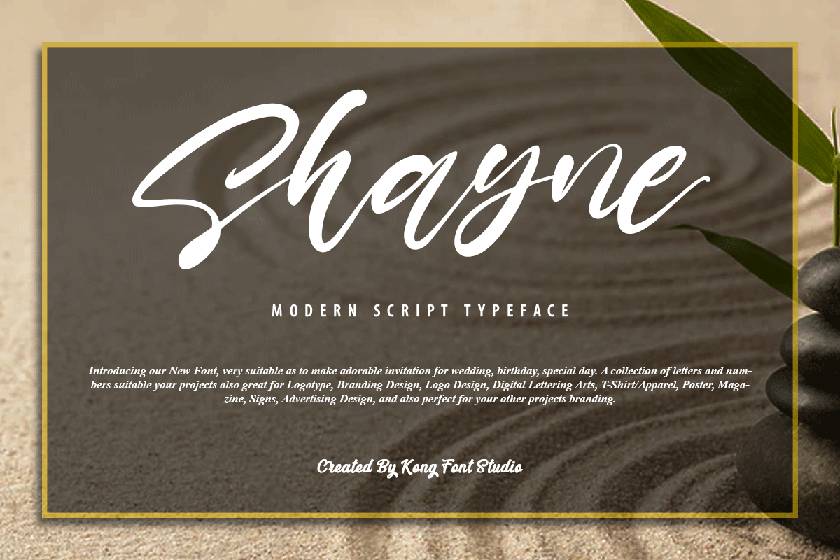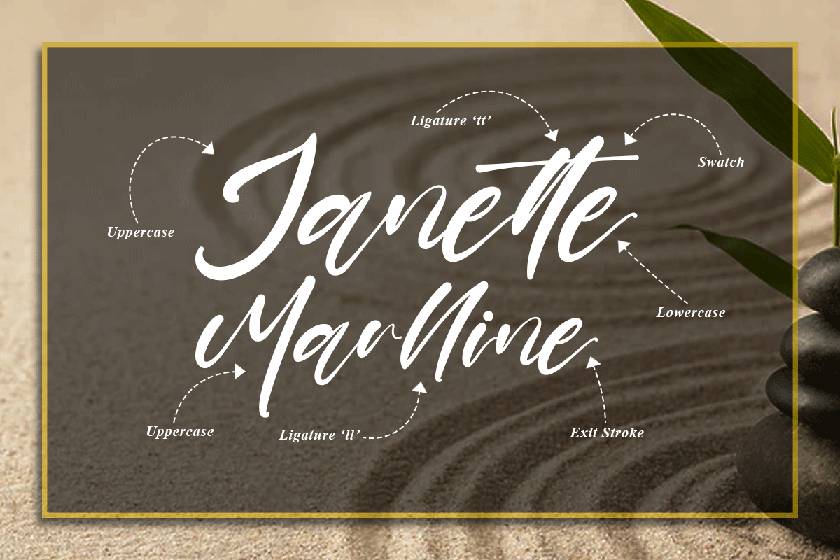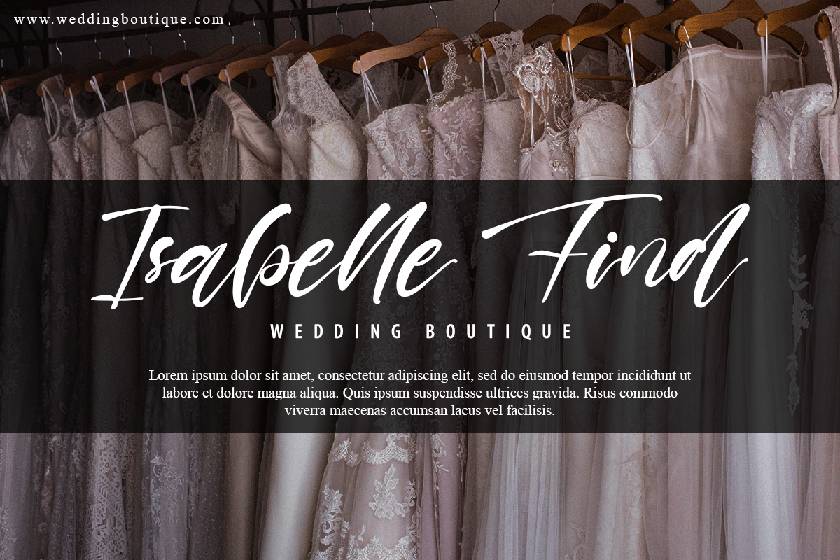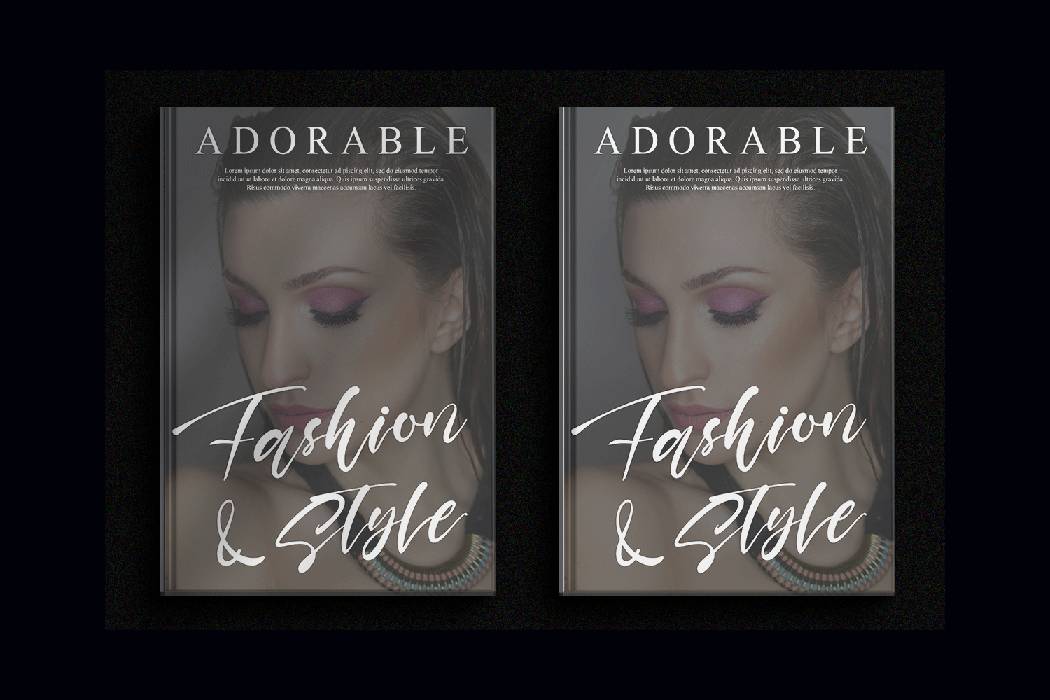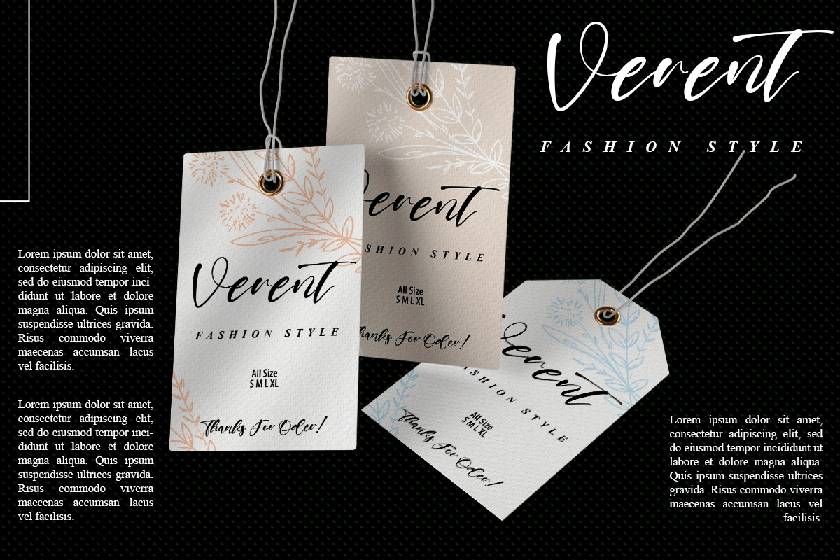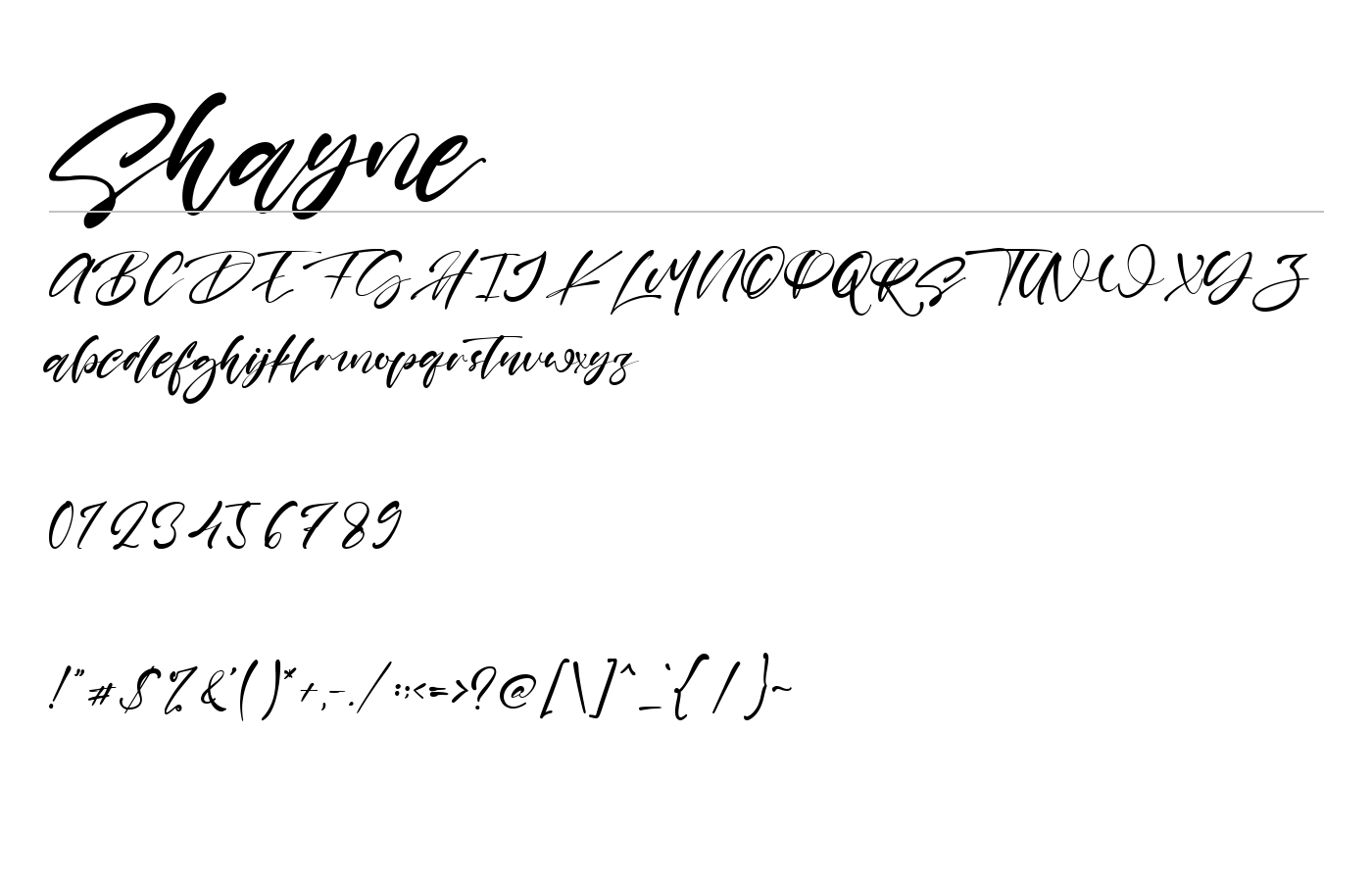
Shayne is an elegant script font featuring smooth, flowing strokes with a lively, handwritten feel. Its varying stroke widths and graceful letterforms make it perfect for adding a personal, stylish touch to invitations, branding, and creative projects where a sophisticated yet approachable look is desired. This font works especially well for logos and headlines that need a chic, modern flair.
Shayne Font
About Shayne Font
| Font family | Shayne Font |